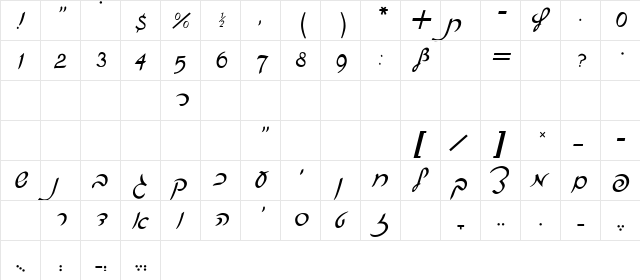
0-Handwriting Medium Font Preview
0-Handwriting Medium
Design Context for 0-Handwriting Typeface
0-Handwriting flows with the natural rhythm of handwritten lettering, making it ideal for designs that call for warmth and personal expression.
Font Pairing: Combine 0-Handwriting with a simple geometric sans for maximum contrast — the tension between flowing curves and clean structure is a classic typographic pairing.
Pro Tip: Use 0-Handwriting for short runs of text — names, titles, or taglines. Extended body copy in script faces tires the eye quickly.